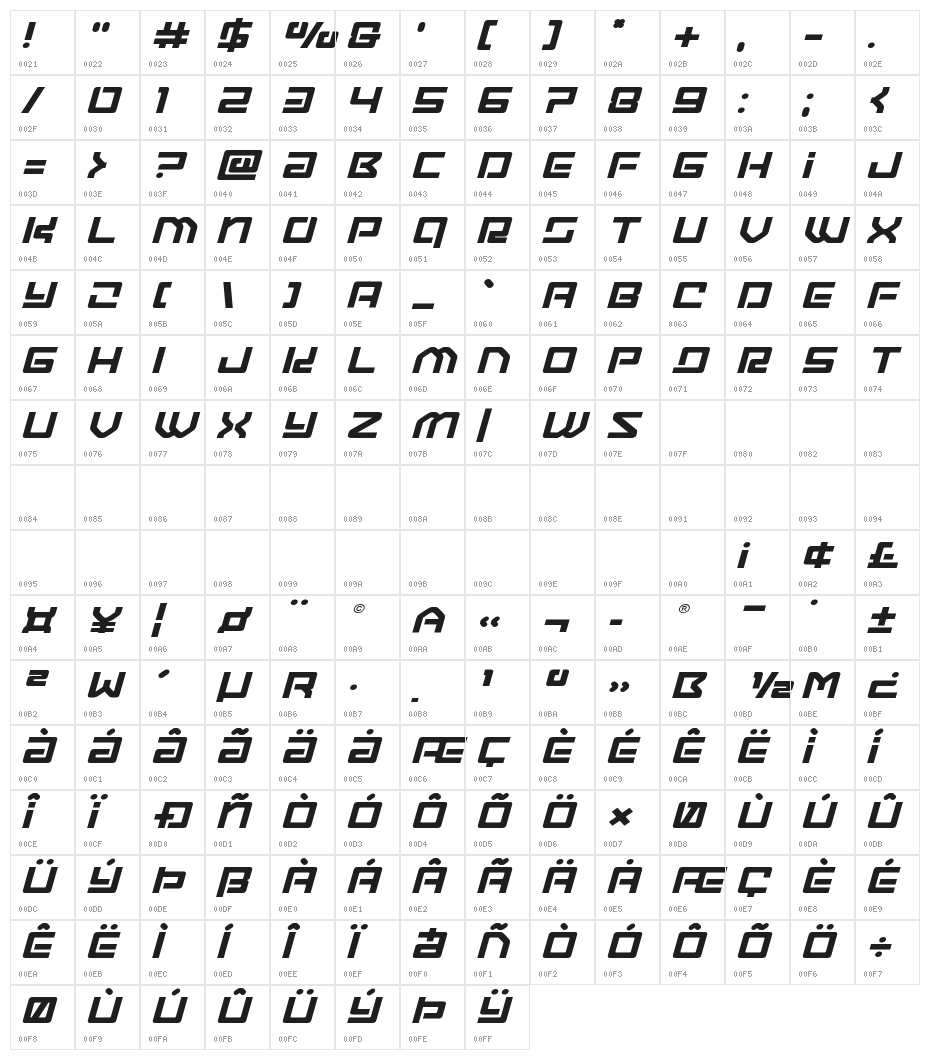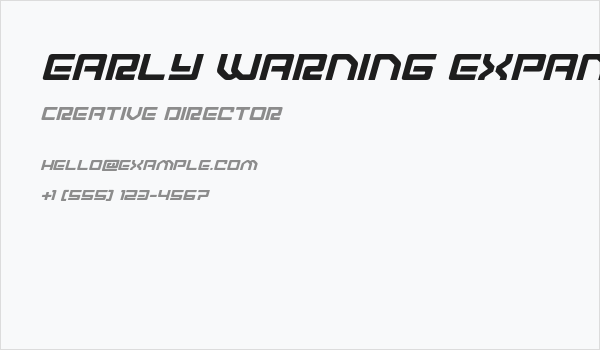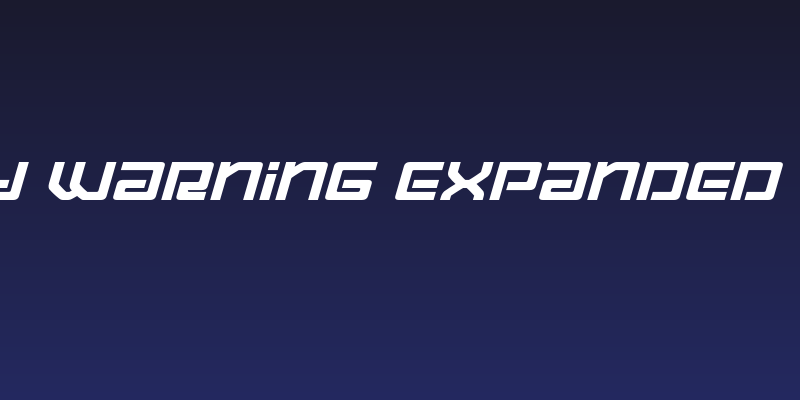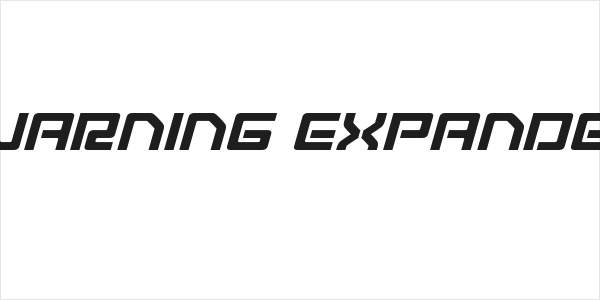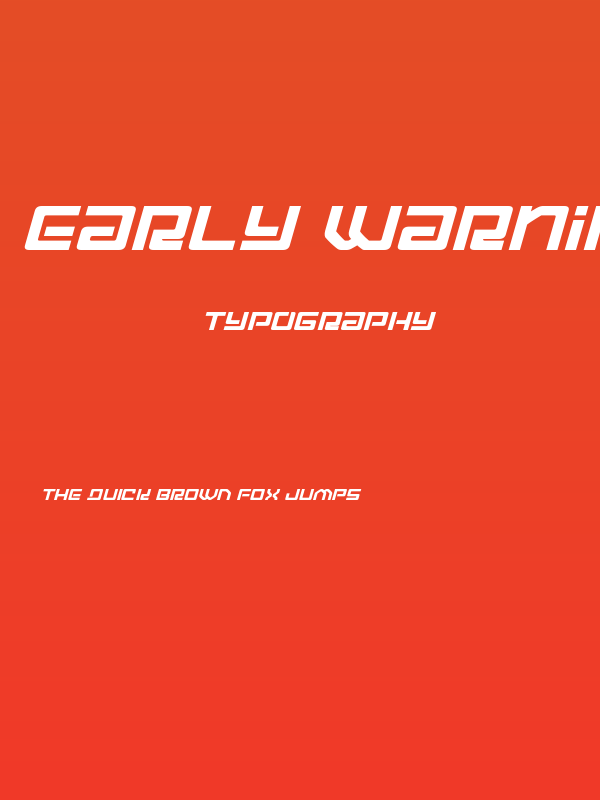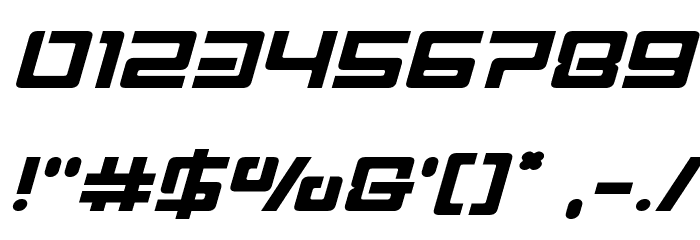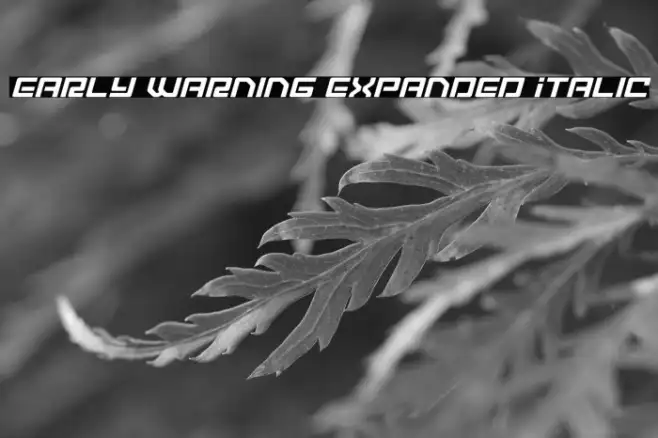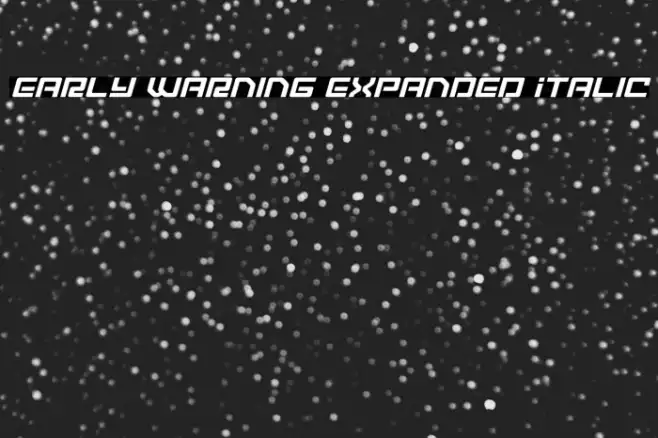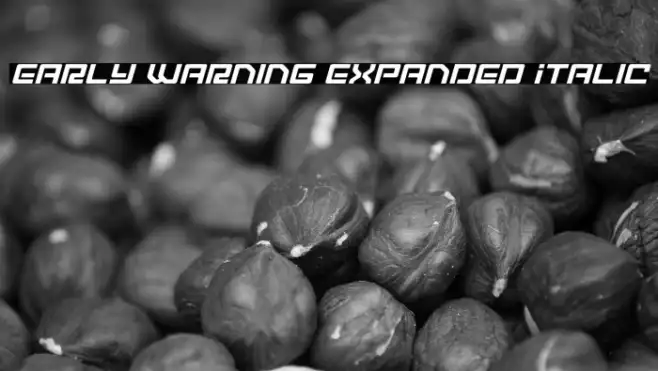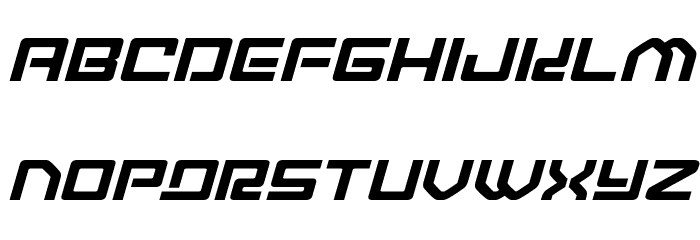
Early Warning Expanded Italic Font
Early Warning Expanded Italic Description
This font features a futuristic and dynamic design, characterized by its expanded and italicized letterforms. The angular and geometric shapes give it a modern and tech-inspired appearance. The uppercase and lowercase letters maintain a consistent style, with sharp edges and a slight slant that enhances its forward-moving feel. The numerals and special characters follow the same design principles, ensuring uniformity across all glyphs. Its bold strokes and expanded width make it highly legible and suitable for attention-grabbing applications.
| Proposed Projects | Ideal for technology branding, sci-fi movie titles, video game interfaces, and modern advertising campaigns. |